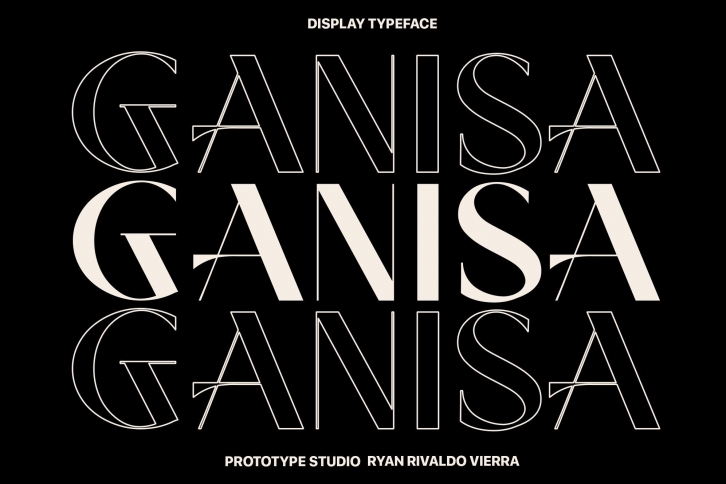
Ganisa Display Typeface is a modern contrast display serif typeface by Ryan Rivaldo Vierra. This font is best suited for fashion, magazines, logos and branding, social media, and other works of art